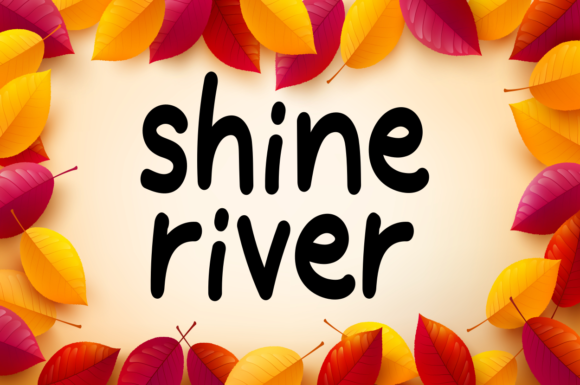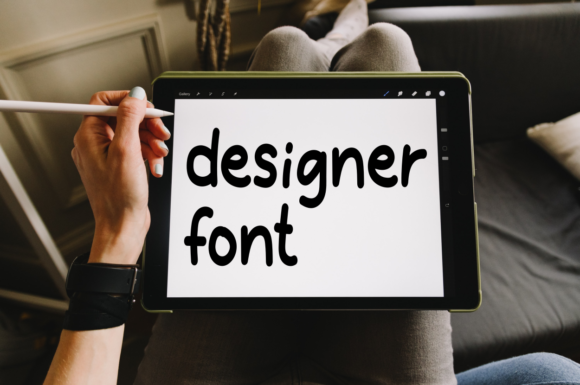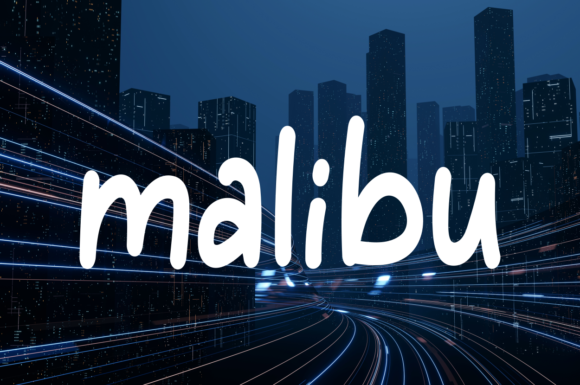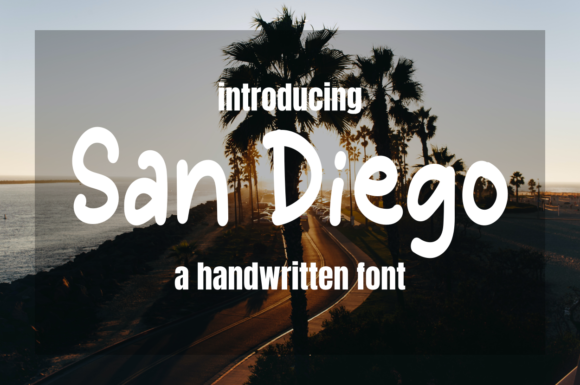
Introduction to San Diego Font
San Diego is a simple and refined display font.
Its friendly feel makes this font adaptable and readable, fitting a wide range of contexts It looks lovely on thank you cards, quotes, greeting cards, logos, business cards and every other design that needs a trendy touch.